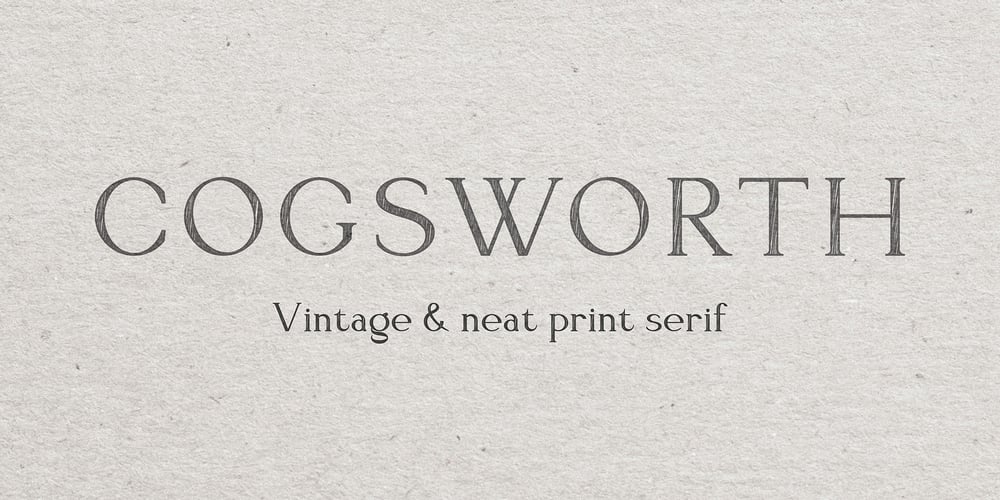
Cogsworth Font Family was designed by Anastasia Kuznetsova and published by Anastasia Kuznetsova. Cogsworth contains 1 styles and family package options. Get to know the natural and neat font “Cogsworth”! This beautiful neat retro font with imperfect ink edges and a little careless shading is inspired by nature. Eco-friendly fashion takes into account the health of consumers, the health of the planet. The “Cogsworth” font is perfectly combined with any stylized graphics, watercolors, and also looks great on its own as part of a minimalist design. Play with letters to get different effects.Great for branding, wedding invitation design, packaging design, quotes, label design and more.Font Features A-Z; a-z character set; 1 language (English); numbers and punctuation marks, symbols. A font containing uppercase and lowercase letters, numbers, and a wide range of punctuation marks.Fonts can be opened and used in any software that can read standard fonts, even in MS Word. No special software is required, and to get started.It is recommended to use it in Adobe Illustrator or Adobe PhotoshopMade with love ♡Thanks for checking it out, and feel free to drop me a message if you had any queries!~ Anastasia